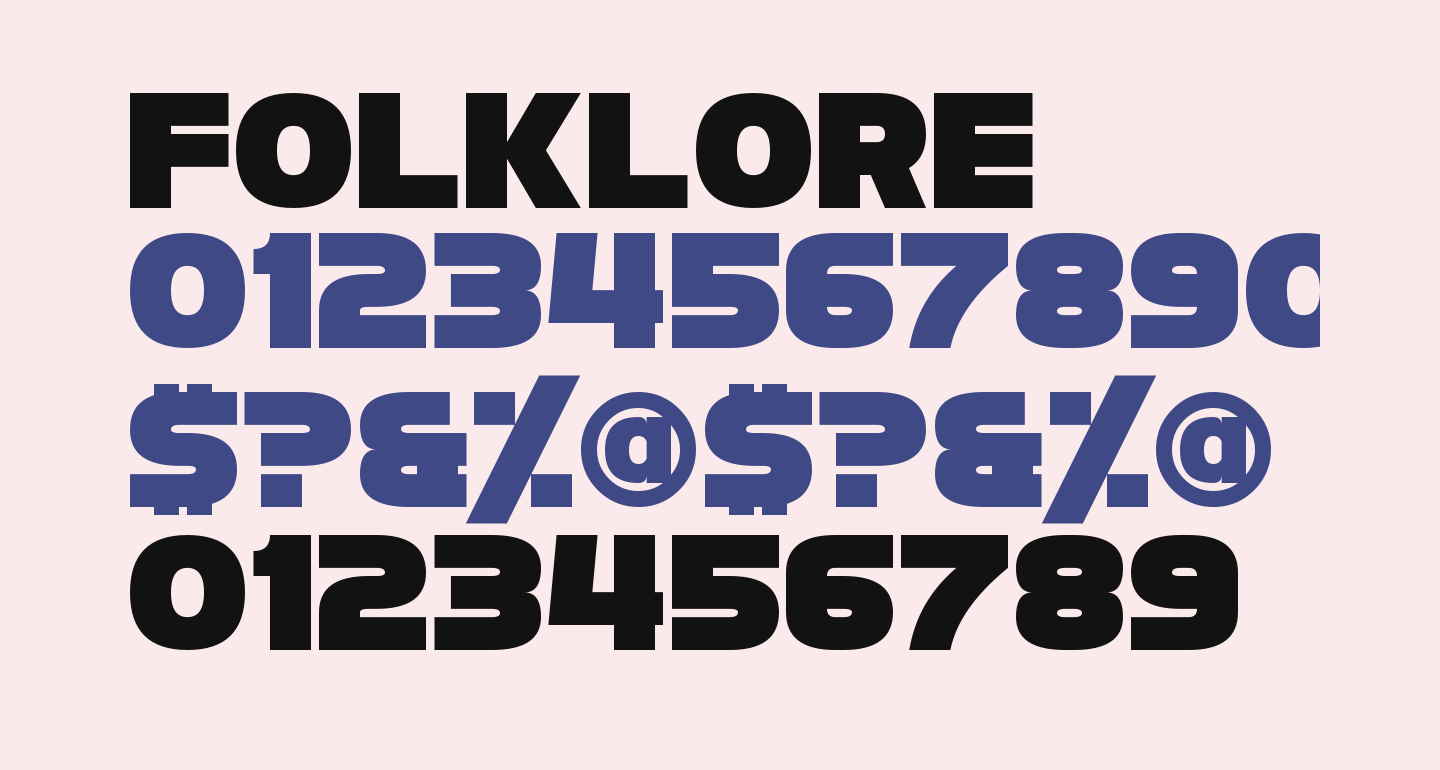
Folklore Font Generator. Thousands of designers (famous or not) use the image font detection system to find a font or similar free fonts from an image. Font meme is a fonts & typography resource.
You can see the origin, appearance and characteristics of each mythological creature. The fonts in use section features posts about fonts used in logos, films, tv shows, video games, books and more; Have you guys seen the band with an album named folklore in 2017 with the same font.
Taylor swift album font, folklore and evermore albums. Although we have the largest database of fonts, the search for a font from an image gets mixed results like the image above. The title of this album is designed with quite unique characters with the original font very similar to the im fell dw pica font.
Have You Guys Seen The Band With An Album Named Folklore In 2017 With The Same Font.
How does the font generator work? They're clearly in the same lineage. In basic > sans serif.